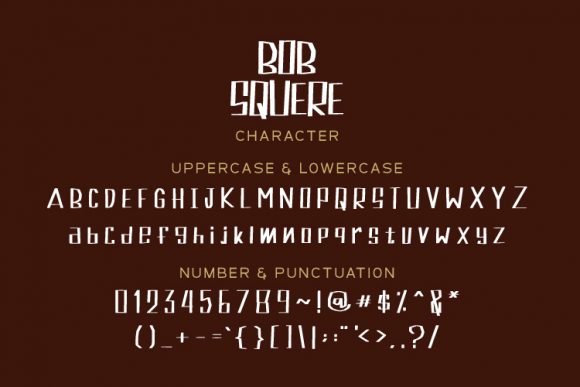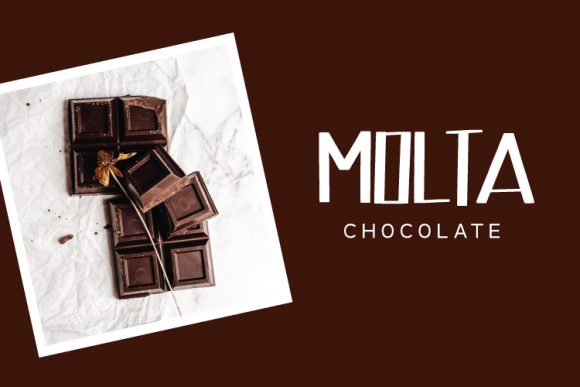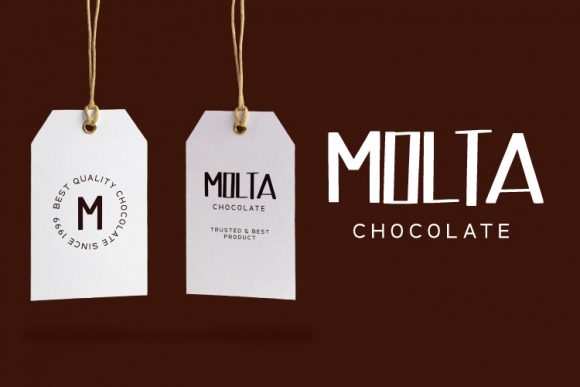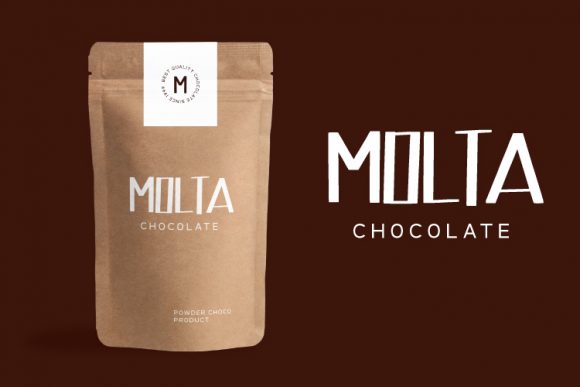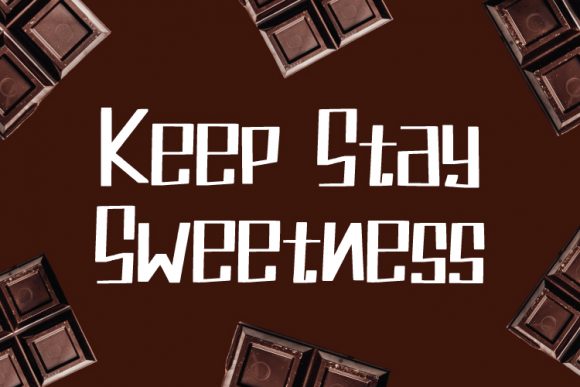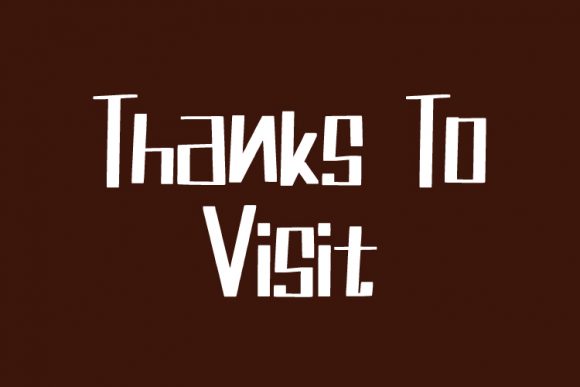
Unlock the Cosmic Potential of Your Designs
Have you ever stared at a blank canvas, desperate for inspiration to strike? It’s a moment we’ve all been there, searching for that elusive spark to bring our creative ideas to life. For designers, this moment is a constant companion, yet one that can be transformed into a moment of pure joy with the right tools.
Enter the Bobsquare Font, a sleek and modern display font designed to transport your creations to new and exciting realms. Expertly crafted to evoke a sense of boldness and sophistication, this font is the perfect companion for any design project. Whether you’re working on a futuristic concept or a retro-inspired masterpiece, the Bobsquare Font is sure to elevate your design to new heights.
Bobsquare Font Key Features
- Font Family: Bobsquare, a unique and modern sans-serif font designed for digital displays.
- Unique Characteristics: Bobsquare features a distinctive geometric shape with subtle rounded edges, giving it a friendly and approachable feel.
Bobsquare Font Review
Overall, I’m quite impressed with the Bobsquare Font. It’s a solid addition to any designer’s toolkit, and here’s what I think works well: ✨
- Unique Character: The Bobsquare Font has a distinct, quirky feel to it that can add a touch of personality to your designs.
- Legibility: Despite its unusual style, the font is surprisingly easy to read, even at smaller sizes.
- Font Weight Options: The font comes with a range of weight options, allowing you to customize the look to suit your needs.
- Limited Language Support: The font may not be suitable for languages that require a wide range of characters, such as Chinese or Japanese.
- Not Ideal for Body Text: While the font works well for headlines or titles, it may not be the best choice for large blocks of body text.
Overall, I’d give the Bobsquare Font a solid 4 out of 5 stars. It’s a fun, versatile font that’s perfect for adding a bit of whimsy to your designs. Just be aware of its limitations and use it judiciously.
Bobsquare Font Practical Application Guide
Getting Started with Bobsquare Font
Getting the Most Out of Bobsquare Font
For the best results, use the Bobsquare font in bold or italic styles to add emphasis to your text. You can also combine it with other fonts to create a unique and eye-catching design.
The Bobsquare font is ideal for use in creative projects, such as posters, flyers, and social media graphics. It’s also a great choice for use in headings and titles to add a touch of personality to your designs.